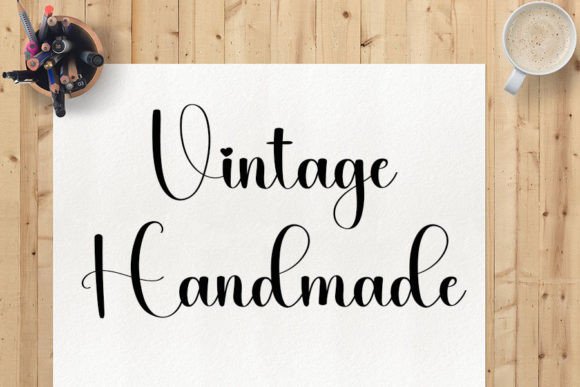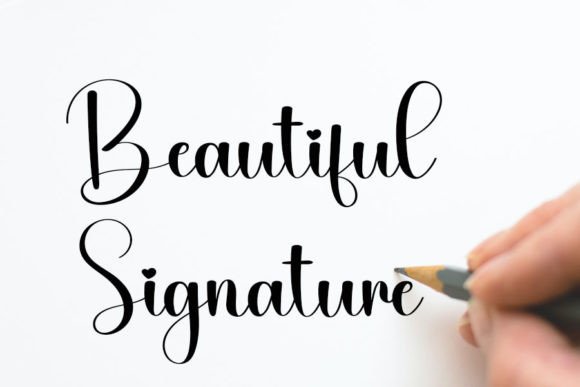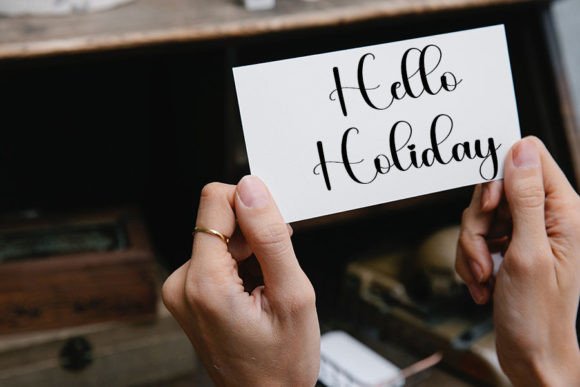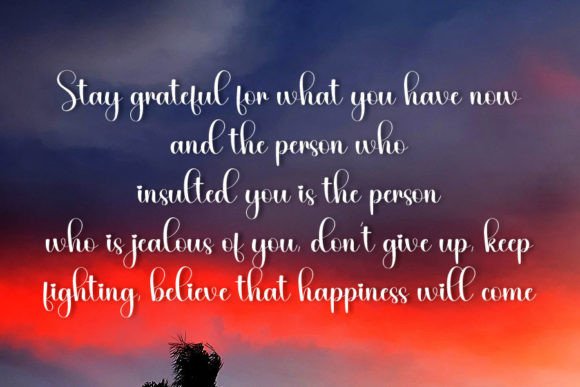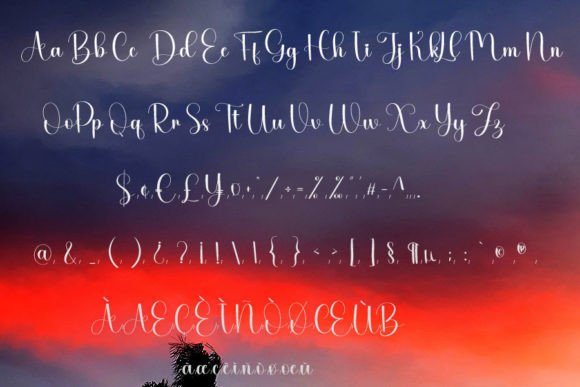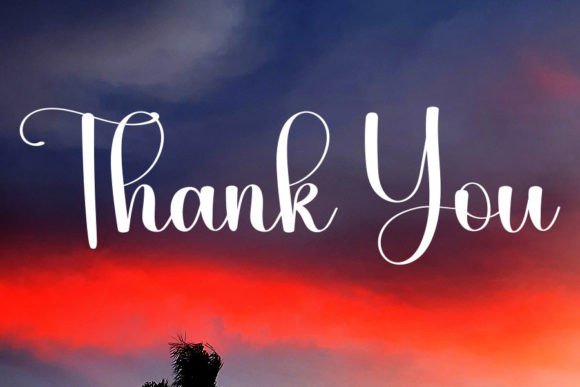
Wiliam Font
About Wiliam Font
William is a charming and visually pleasing handwritten font that exudes a sweet and beautiful quality. With characters that gracefully dance along the baseline, this font introduces a sense of movement and fluidity, adding a luxurious spark to any design project you wish to create.
The handwritten nature of William brings a personal and authentic touch to your text, making it suitable for a variety of creative applications. Whether you’re working on branding, invitations, product packaging, or any design project that requires an elegant and luxurious feel, William proves to be a versatile choice.
Envision William enhancing the aesthetics of wedding invitations, introducing a romantic and luxurious spark to the celebration. Picture it gracing product packaging, creating a visual experience that resonates with consumers. Whether used in digital or print media, William stands out, leaving a lasting impression on your audience.
In essence, William is not just a font; it’s a design element that brings sweetness, beauty, and a touch of luxury to your projects. Let it be the spark that elevates the overall appeal of your creative endeavors, making them truly captivating and memorable.